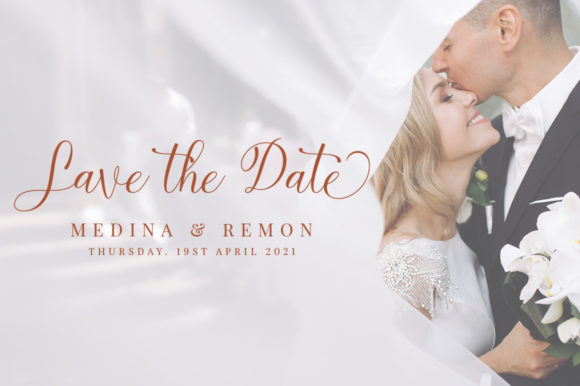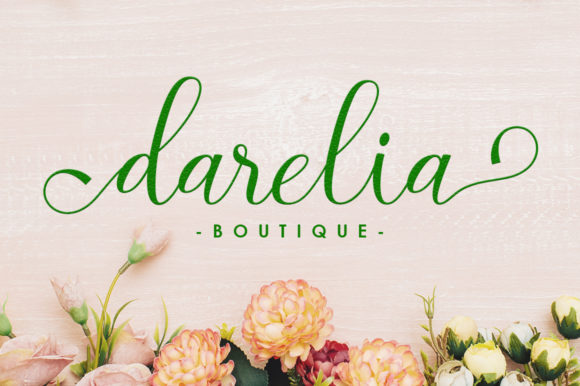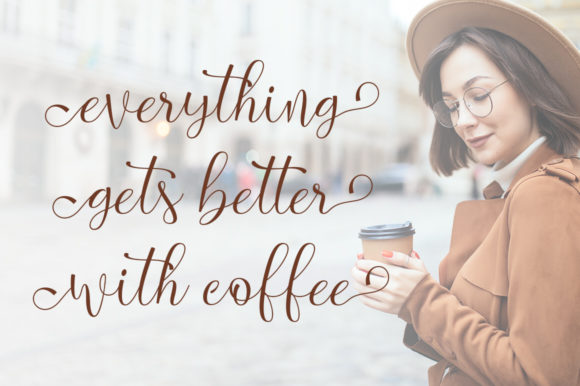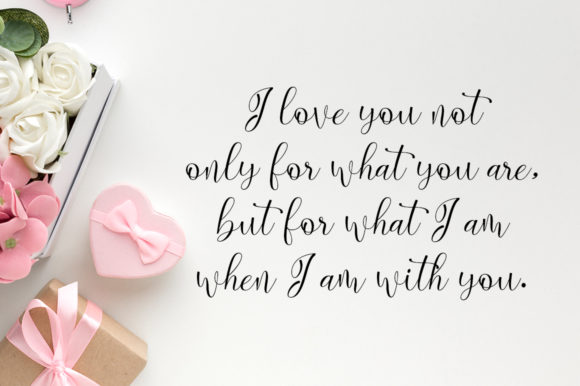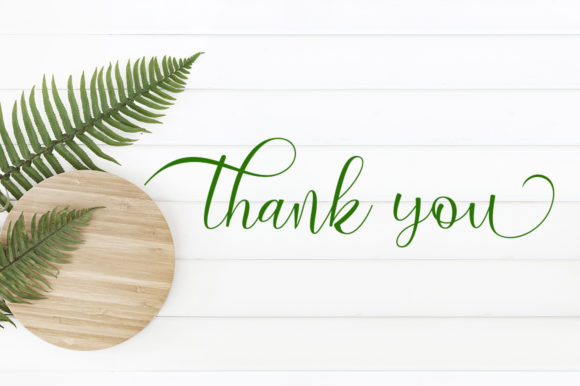
Discover the Elegance of Andena Font: A Timeless Handwritten Script
Are you a designer or crafter looking for a font that adds a touch of elegance and sophistication to your projects? Look no further than the Andena Font. This incredibly distinct, delicate, and timeless handwritten font is perfect for a variety of designs, from wedding invitations to business cards, and everything in between.
What Makes Andena Font So Special?
Andena Font is a unique and beautiful handwritten script that stands out from the crowd. Its delicate and intricate strokes give it a timeless quality that is sure to impress. Whether you’re looking to add a touch of romance to a wedding invitation or a professional touch to a business card, Andena Font is the perfect choice.
Andena Font is a popular choice for wedding and event designs, and for good reason. Its elegant and sophisticated script is perfect for wedding invitations, save-the-date cards, and thank you cards. It also looks stunning on event posters, banners, and other promotional materials. With Andena Font, you can create beautiful and memorable designs that will leave a lasting impression on your guests.
Ideal for Crafters and DIY Enthusiasts
Andena Font is not just limited to professional designers. Crafters and DIY enthusiasts will also love this beautiful font. Use it to create personalized gifts, such as monogrammed tote bags, customized mugs, and handmade cards. Andena Font is also perfect for journaling and scrapbooking, adding a touch of elegance to your pages.
One of the best things about Andena Font is its versatility. It can be used for a wide range of designs, including:
• Thank you cards and gift tags
• Quotes and posters
• Greeting cards and postcards
• Logos and branding materials
• Business cards and letterheads
• Journaling and scrapbooking
Why Choose Andena Font?
So why choose Andena Font over other fonts? Here are just a few reasons:
• Unique and distinctive: Andena Font is a one-of-a-kind font that will set your designs apart from the rest.
• Elegant and sophisticated: Andena Font adds a touch of elegance and sophistication to any design.
• Timeless: Andena Font is a timeless font that will never go out of style.
• Versatile: Andena Font can be used for a wide range of designs and projects.
Tips for Using Andena Font
Here are a few tips for using Andena Font in your designs:
• Use it sparingly: Andena Font is a beautiful font, but it can be overwhelming if used too much. Use it sparingly to add a touch of elegance to your designs.
• Pair it with other fonts: Andena Font looks great when paired with other fonts. Try pairing it with a bold font for a striking contrast.
• Experiment with colors: Andena Font looks great in a variety of colors. Experiment with different colors to find the one that works best for your design.
Andena Font is a beautiful and versatile handwritten font that is perfect for designers and crafters alike. Its elegant and sophisticated script makes it ideal for a wide range of designs, from wedding invitations to business cards. With its unique and distinctive style, Andena Font is sure to add a touch of elegance and sophistication to any project. So why not give it a try and see the difference it can make?